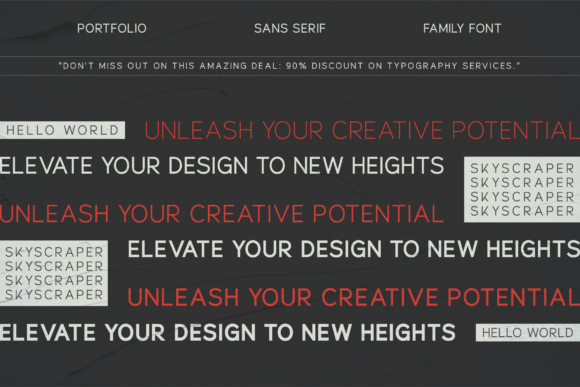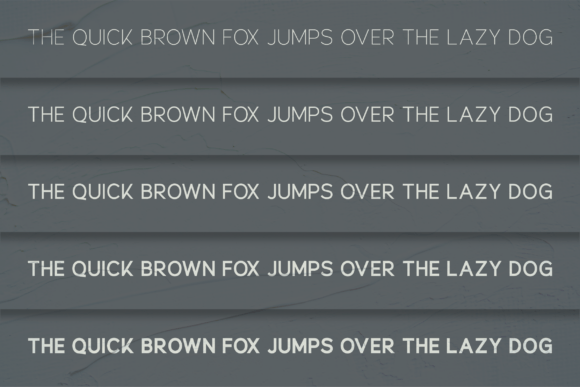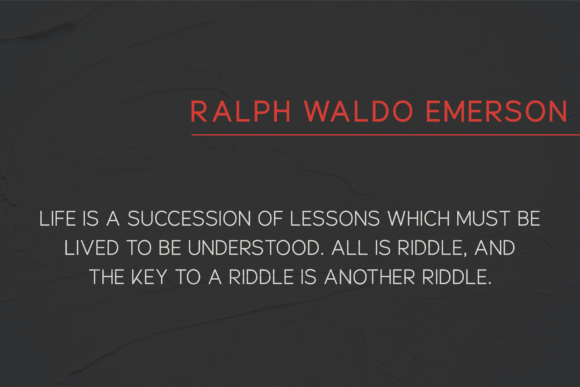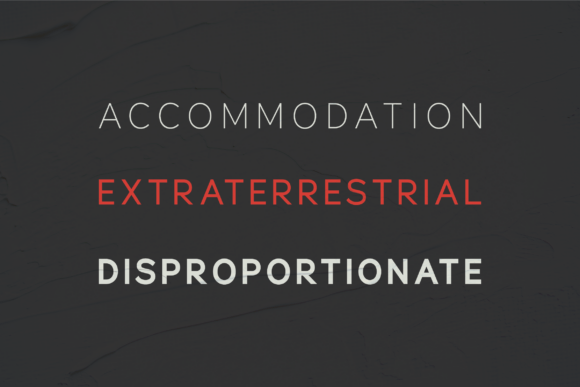
Unlocking Endless Possibilities with Skyscraper Font
Imagine you’re working on a creative project, and you need the perfect font to elevate your design. You’ve spent hours searching for the ideal sans-serif font, but nothing seems to match the vision in your mind. This is where Skyscraper Font comes in – a game-changing design resource that’s set to revolutionize the way you approach typography.
As a designer, you know that a high-quality font can make all the difference in bringing your ideas to life. With Skyscraper Font, you’ll have access to a meticulously crafted sans-serif font family that boasts 5 distinct weights, giving you the versatility you need to tackle any project. Whether you’re working on a magazine, logo, or film poster, Skyscraper Font is the perfect choice for designers who demand the best.
Key Features of Skyscraper Font
- High-quality vector design, suitable for any creative project
- Transparent background option, allowing for seamless integration into various designs
- Perfect for use in graphic design, digital art, and web design projects
Honest Review: Skyscraper Font
As a designer, I’m always on the lookout for high-quality design resources that can elevate my creative projects. The Skyscraper Font is one such resource that caught my attention recently.
Here are some of the key features that work well:
- Modern and sleek design
- Perfect for city-themed projects or urban landscapes
- Supports transparent background
- Not ideal for projects that require a more subtle or elegant font
- Some characters may appear pixelated at larger font sizes
- May not be suitable for printing at very small font sizes
Overall, I’m impressed with the Skyscraper Font and would recommend it for designers looking for a bold and modern font for their creative projects. However, be aware of its limitations and use it accordingly.
The Skyscraper Font is a high-quality design resource ideal for creative projects. Its unique design and transparent background make it a versatile choice for various applications.
Experiment with different font sizes, colors, and styles to achieve the desired look. Use the transparent background to create a cohesive design.
The Skyscraper Font is ideal for creating eye-catching titles, headings, and graphics for presentations, posters, and marketing materials.